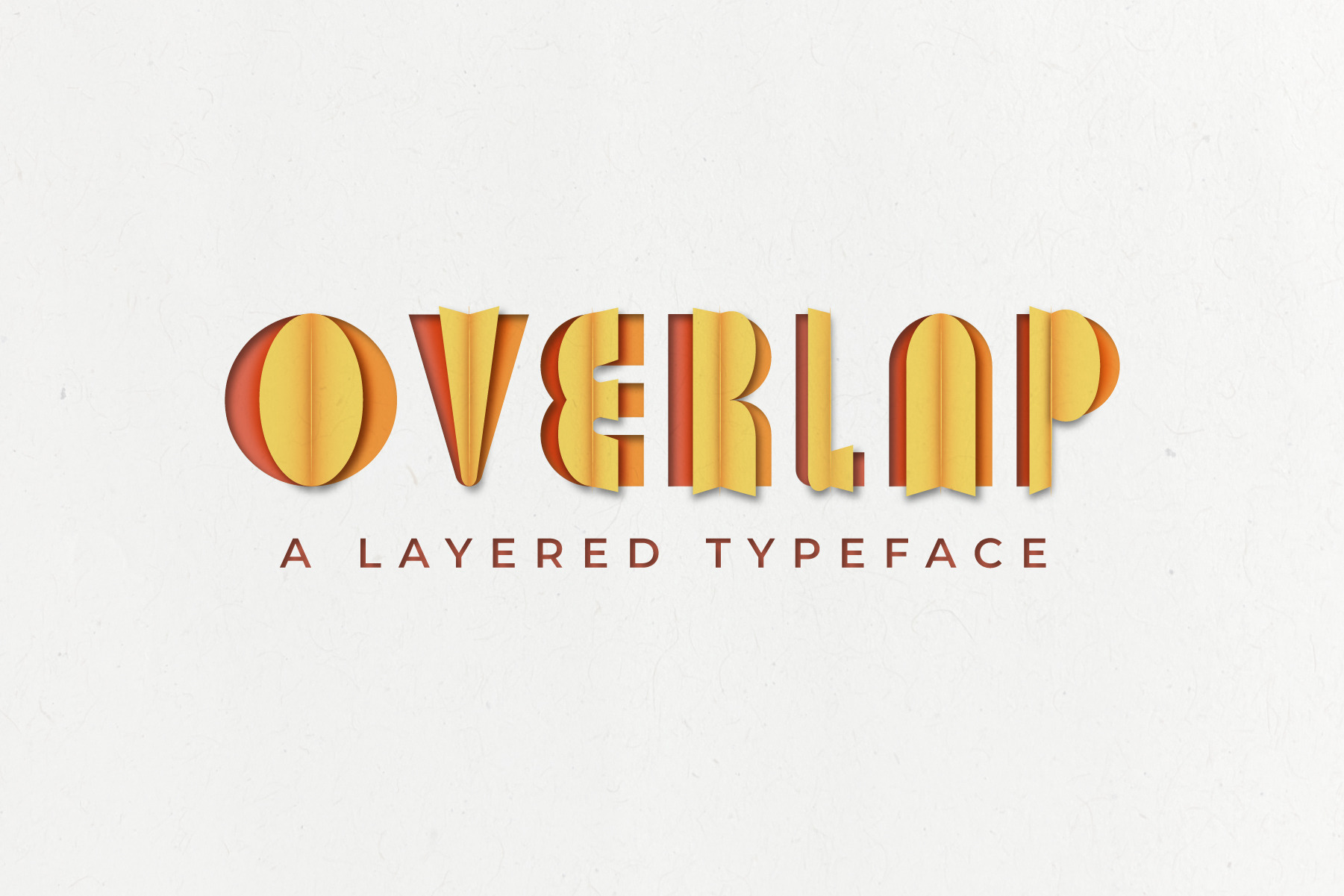
Overlap Font
Overlap is an geometric display typeface designed for use on posters and abstract marketing pieces. Designed in 2019 by Zane Huggins. Download directly on our website at https://full-circle.design/product/overlap-font-family/